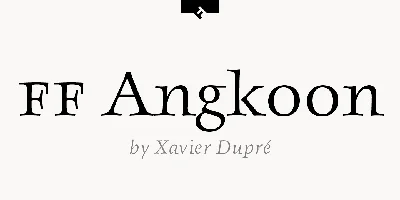
FF Angkoon Font
FF Angkoon Font is perfect for Southeast Asian restaurant branding, Thai cultural center materials, Buddhist temple signage, Asian art gallery displays, spiritual retreat centers, meditation workshop posters, oriental wellness spas, and traditional craft exhibition designs. This serene typeface excels in mindfulness app interfaces, yoga studio branding, incense packaging, and authentic Asian cuisine marketing materials.
What makes FF Angkoon Font exciting is its spiritual tranquility and Eastern wisdom that captures the peaceful harmony and ancient philosophy of Southeast Asian cultures and Buddhist traditions. The font features flowing letterforms, balanced proportions, and meditative character that evokes the serenity of temple gardens and the enlightened calm of spiritual practice. Its peaceful essence and cultural authenticity make every word feel touched by ancient wisdom and inner peace.
FF Angkoon Font family includes various spiritual styles: Regular, Bold, Light, Zen, Flowing, and Sacred variations. Each style maintains the font's signature tranquil character while providing designers with mindful options for creating peaceful brand identities and spiritual typography that resonates with audiences seeking authentic Eastern philosophy and meditative experiences.
Wellness organizations choose FF Angkoon Font for projects requiring spiritual authenticity and Eastern appeal. The font's versatility makes it suitable for both modern wellness applications and traditional cultural materials, ensuring harmonious results across meditation websites, spiritual packaging, and authentic Asian cultural celebration designs.